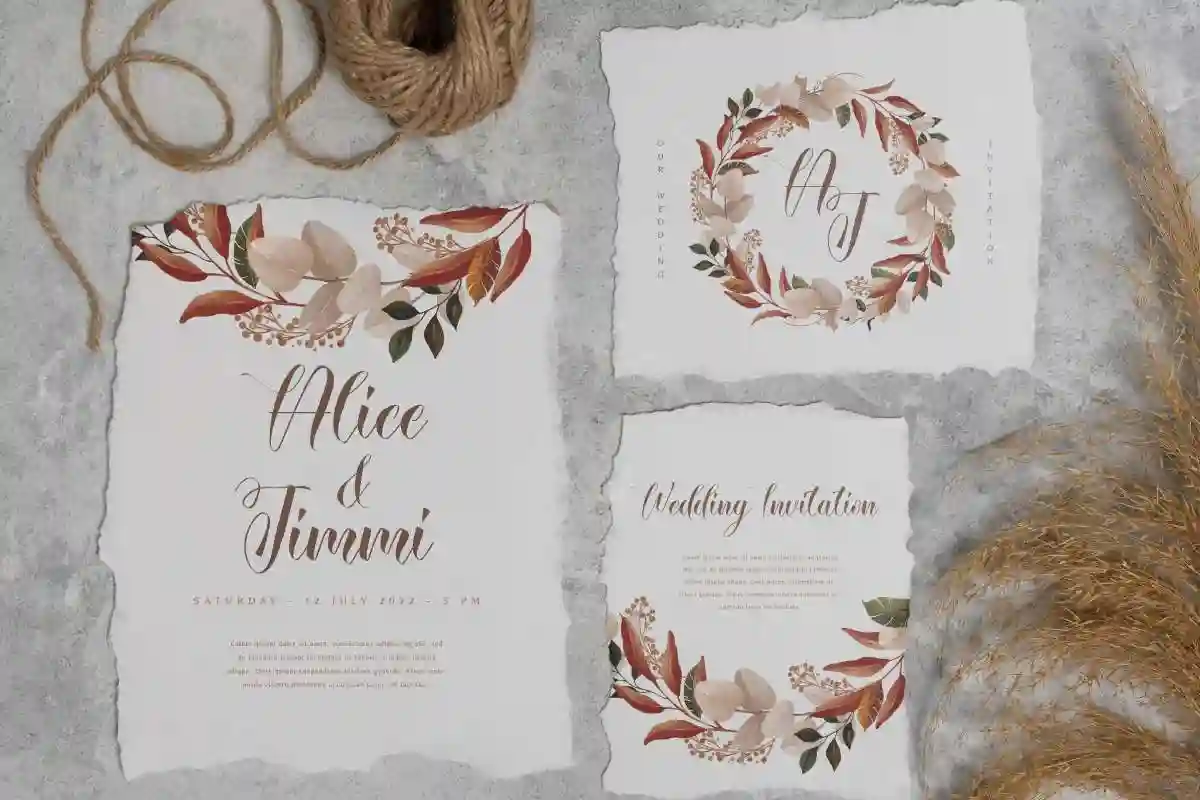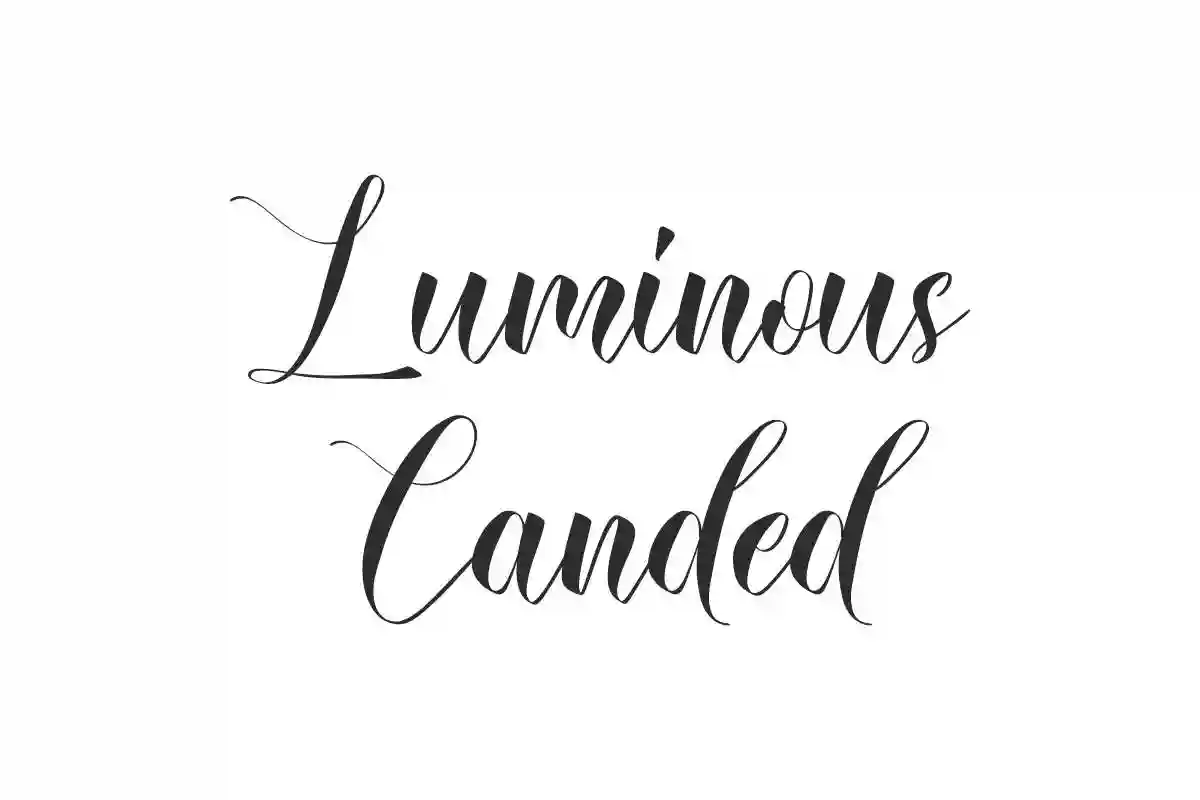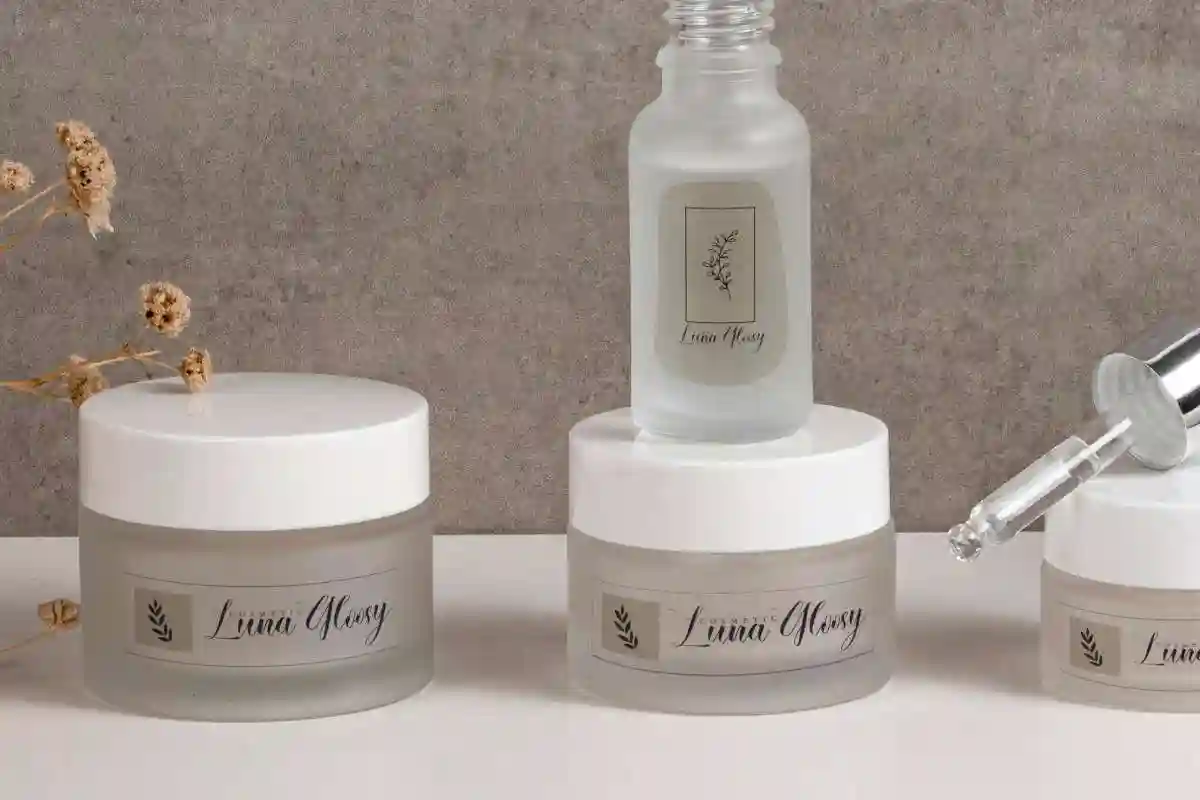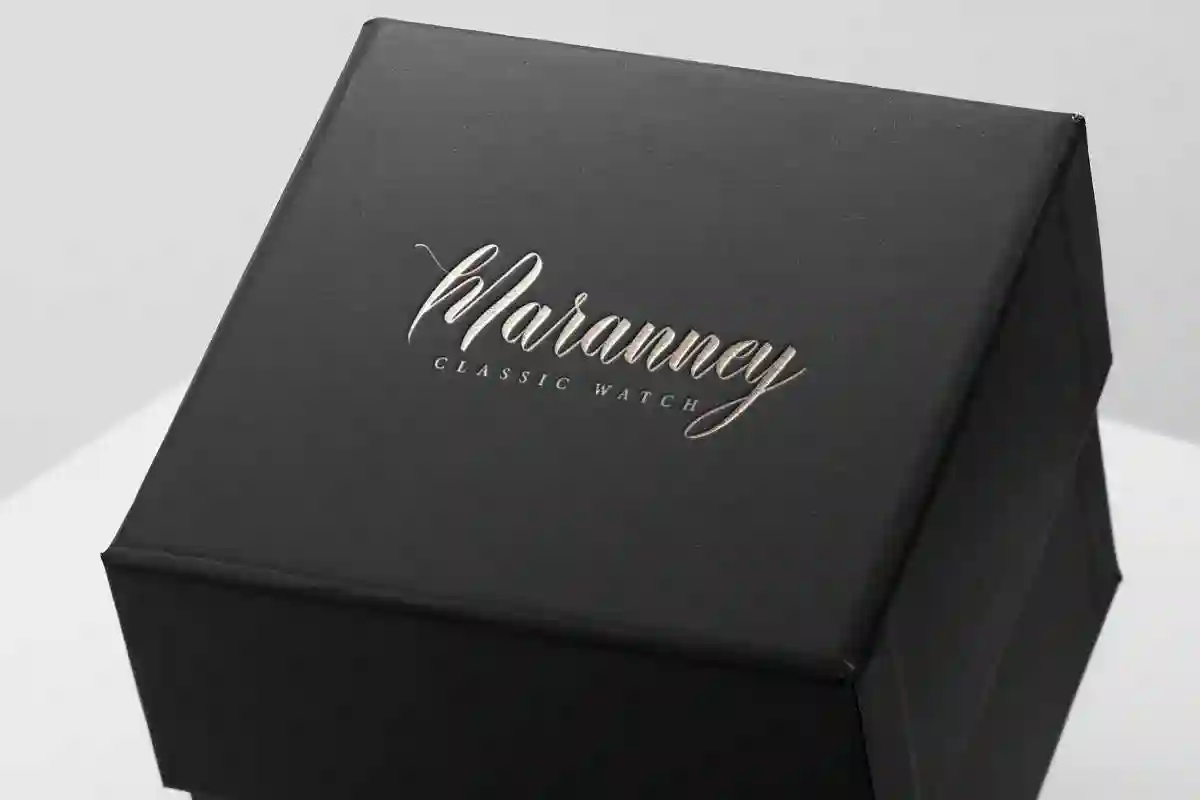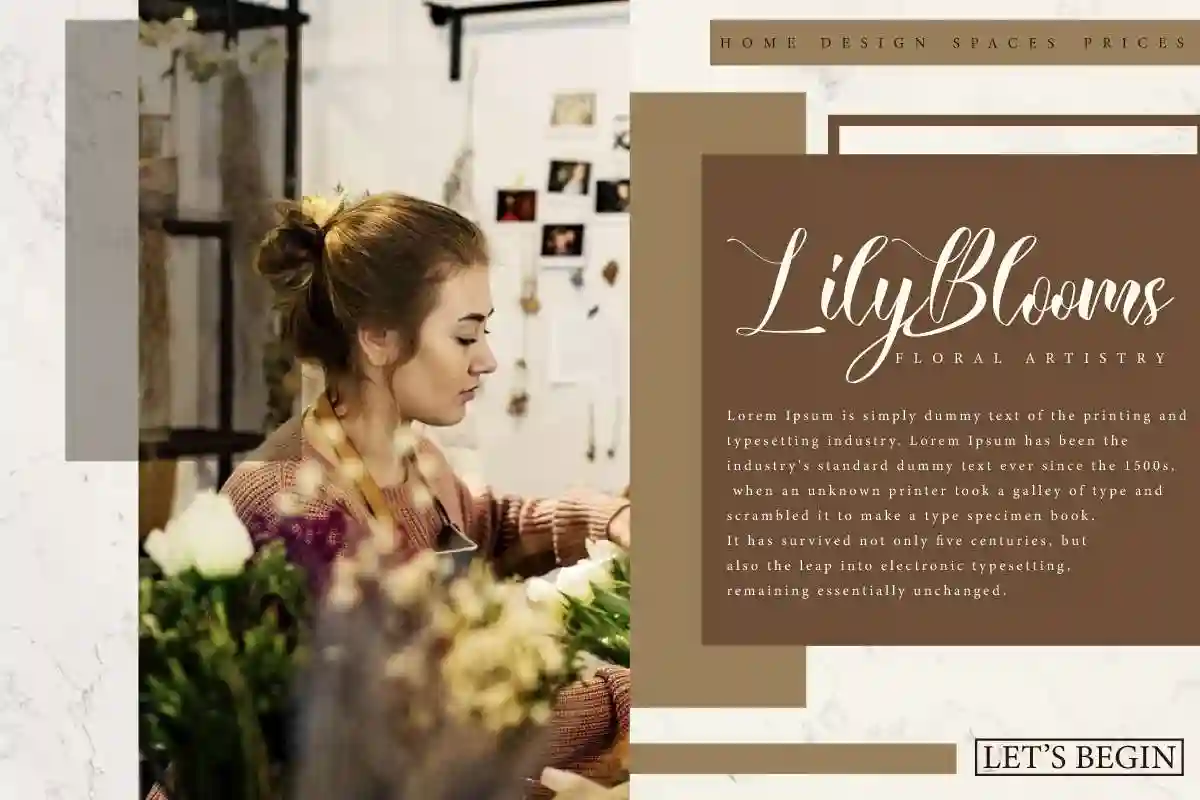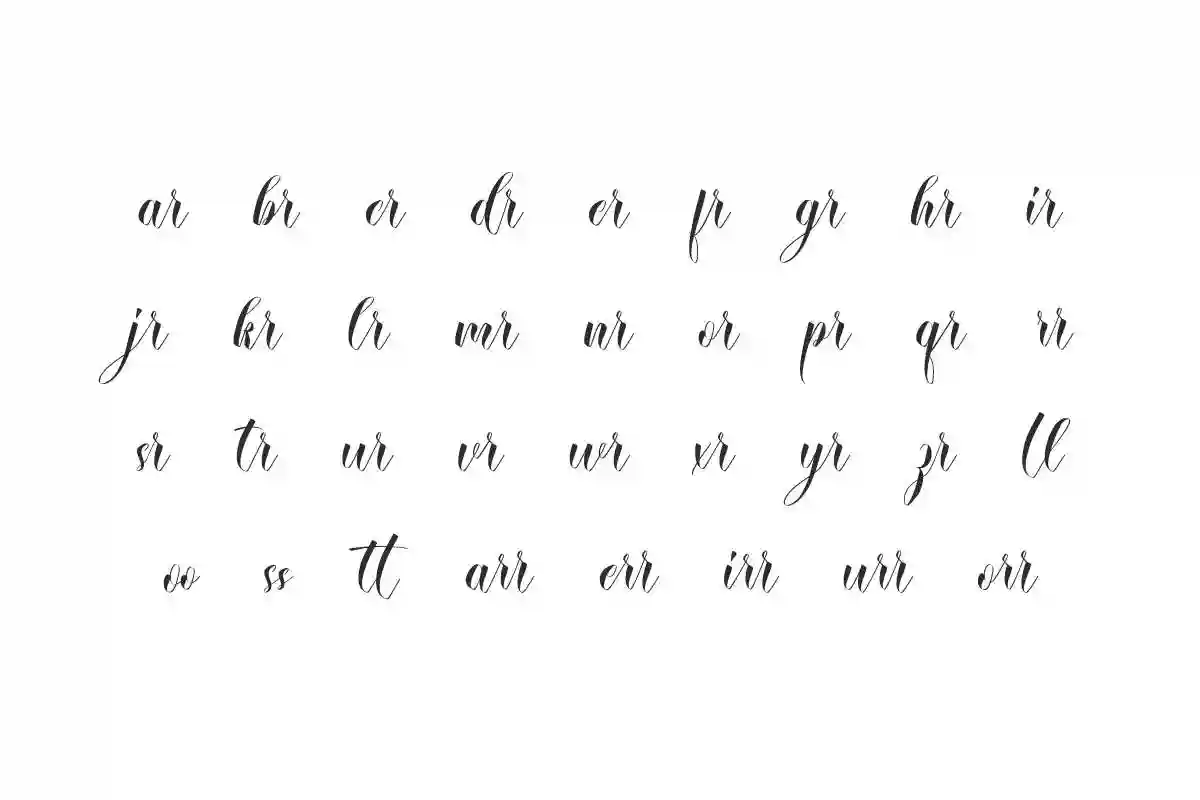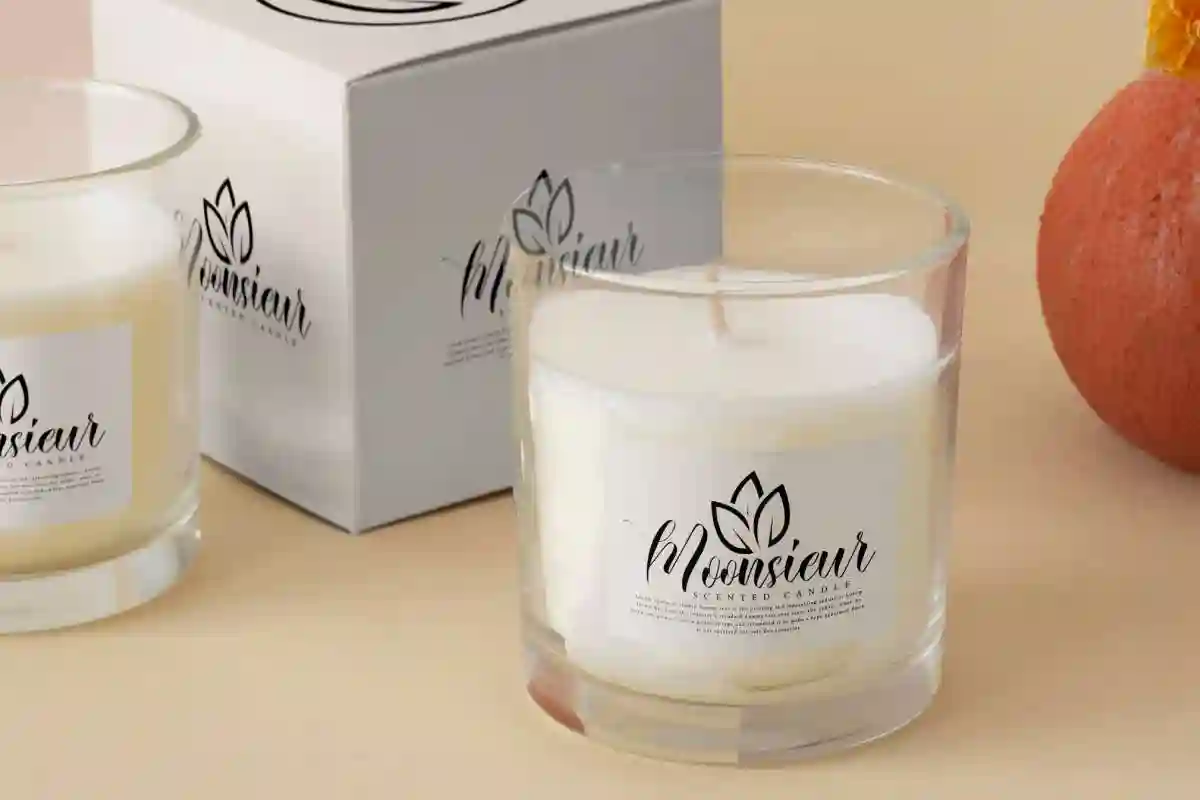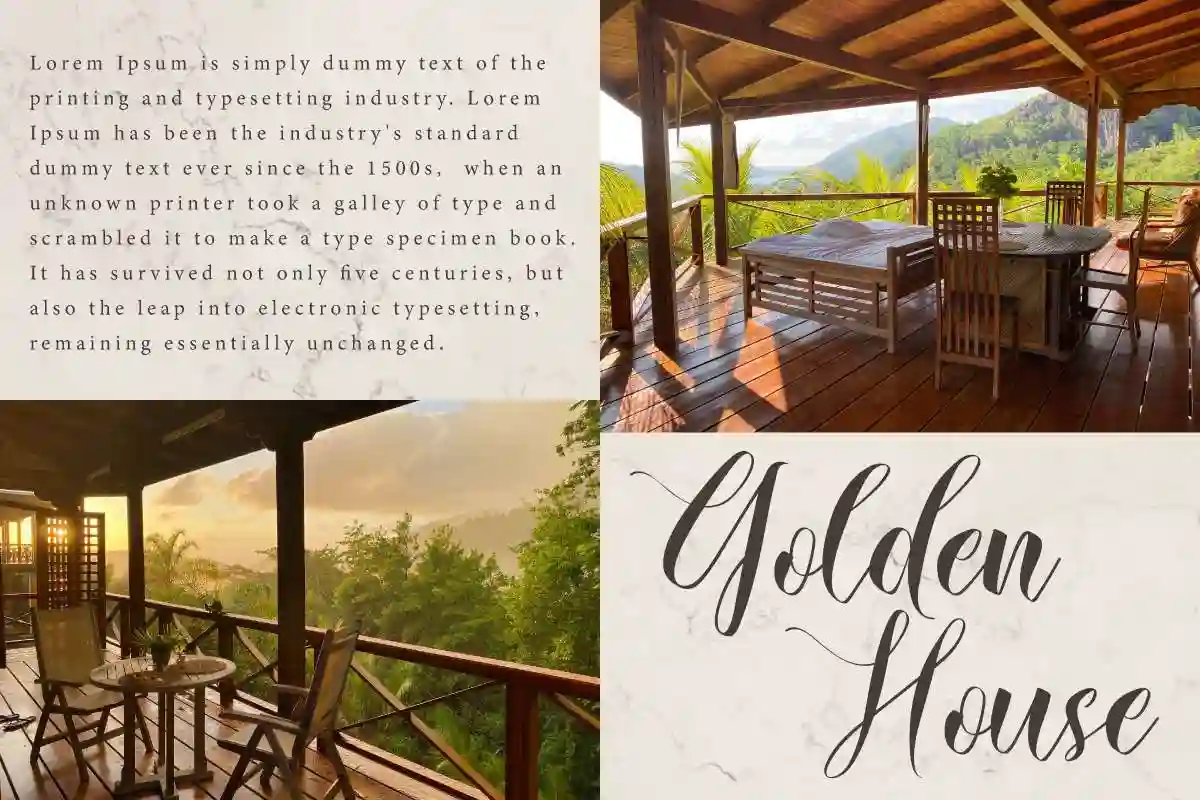
Luminous Canded Font is a luxurious calligraphy font with the allure of elegance, from NihStudio. Use this to add a classy feel to invitation design, furniture, label, spa, etc.
Luminous Canded Font is a luxurious script font with calligraphy style. It has a modern and stylish look that is easy to read and will add beauty to your designs, such as billboard, invitation, label, magazine catalog, packaging design, quotes, stationery, sticker, title, watermark, website, and much more!
Luminous Canded Font comes with a full set of Uppercase and Lowercase Basic Characters, Number, Punctuation, Symbol. This font is also equipped with ligature characters to make it perfectly bound and add aesthetic value to the font. Use this for your business industry such as, accessories, cosmetic, event organizer, florist, furniture, handicrafts, spa, etc.